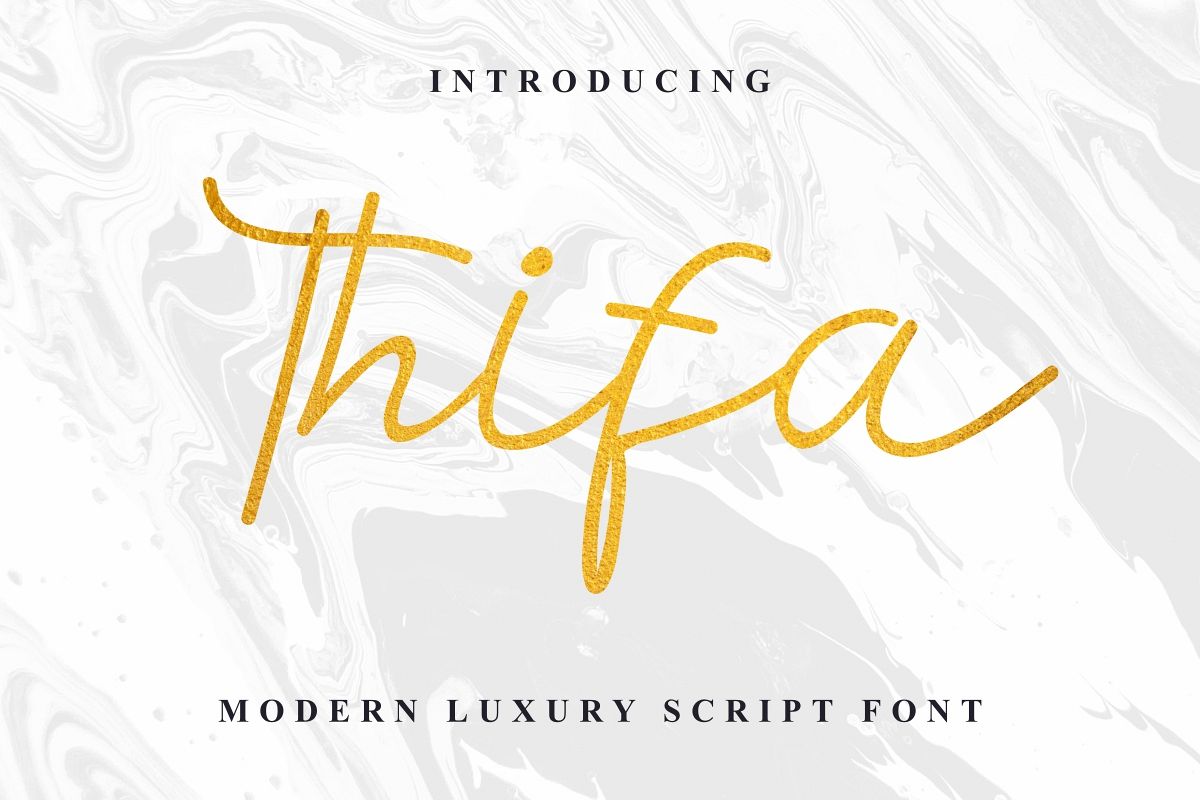
Thifa
Hola Everybody, please welcome the latest artwork of our team : Thifa Font!Thifa is a beautiful monoline handwriting font script. This will work great for signature, product name, branding, logotype , flyer, album cover, social media, magazine, menu, etcThis font will Work on PC & Mac with Simple installations. Accessible in the Adobe Illustrator, Adobe Photoshop, Adobe InDesign, even work on Microsoft Word. It’s also PUA Encoded Characters – Fully accessible without additional design software. Plus it support multi-languageOn purchased, You will get: